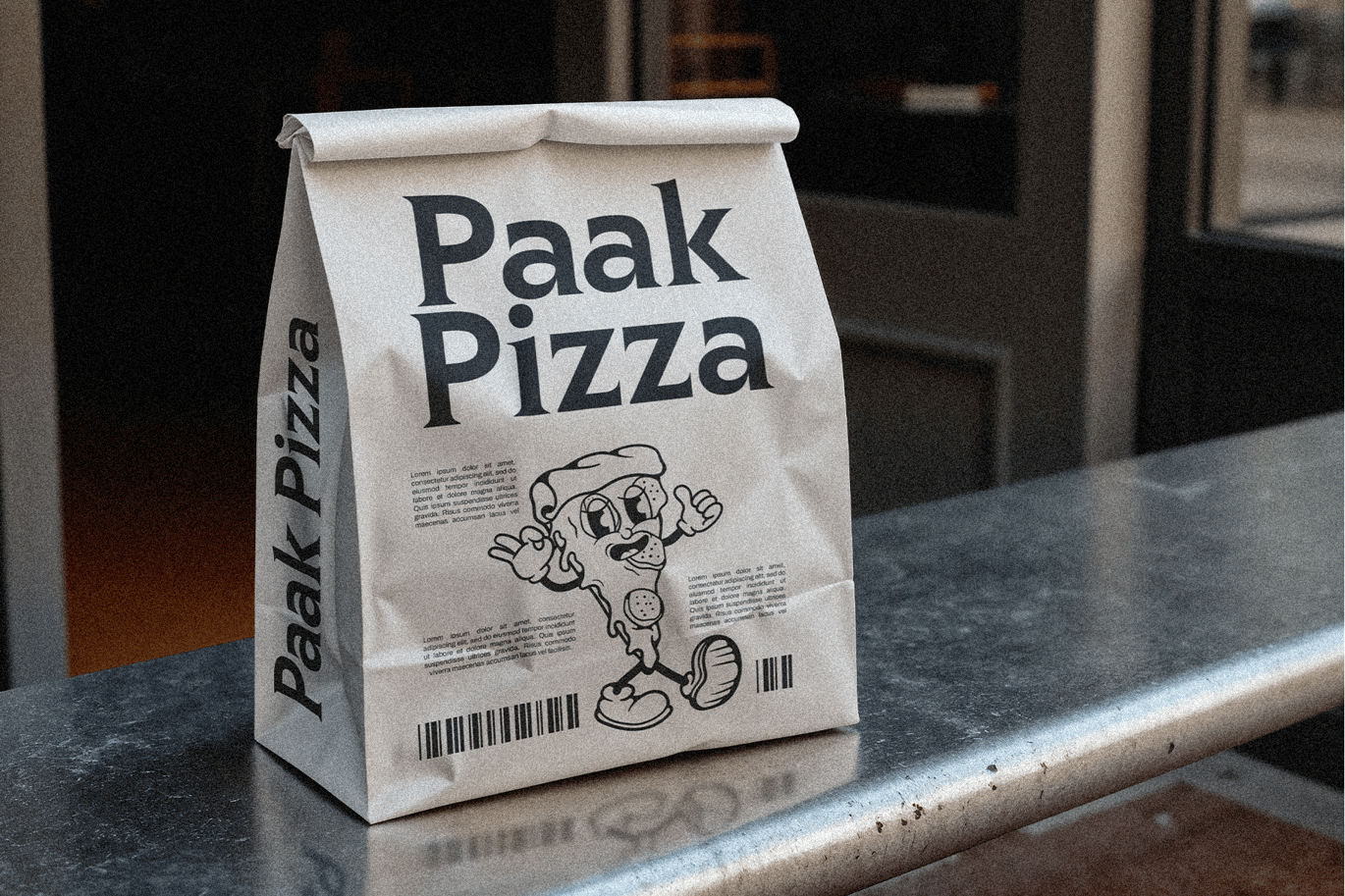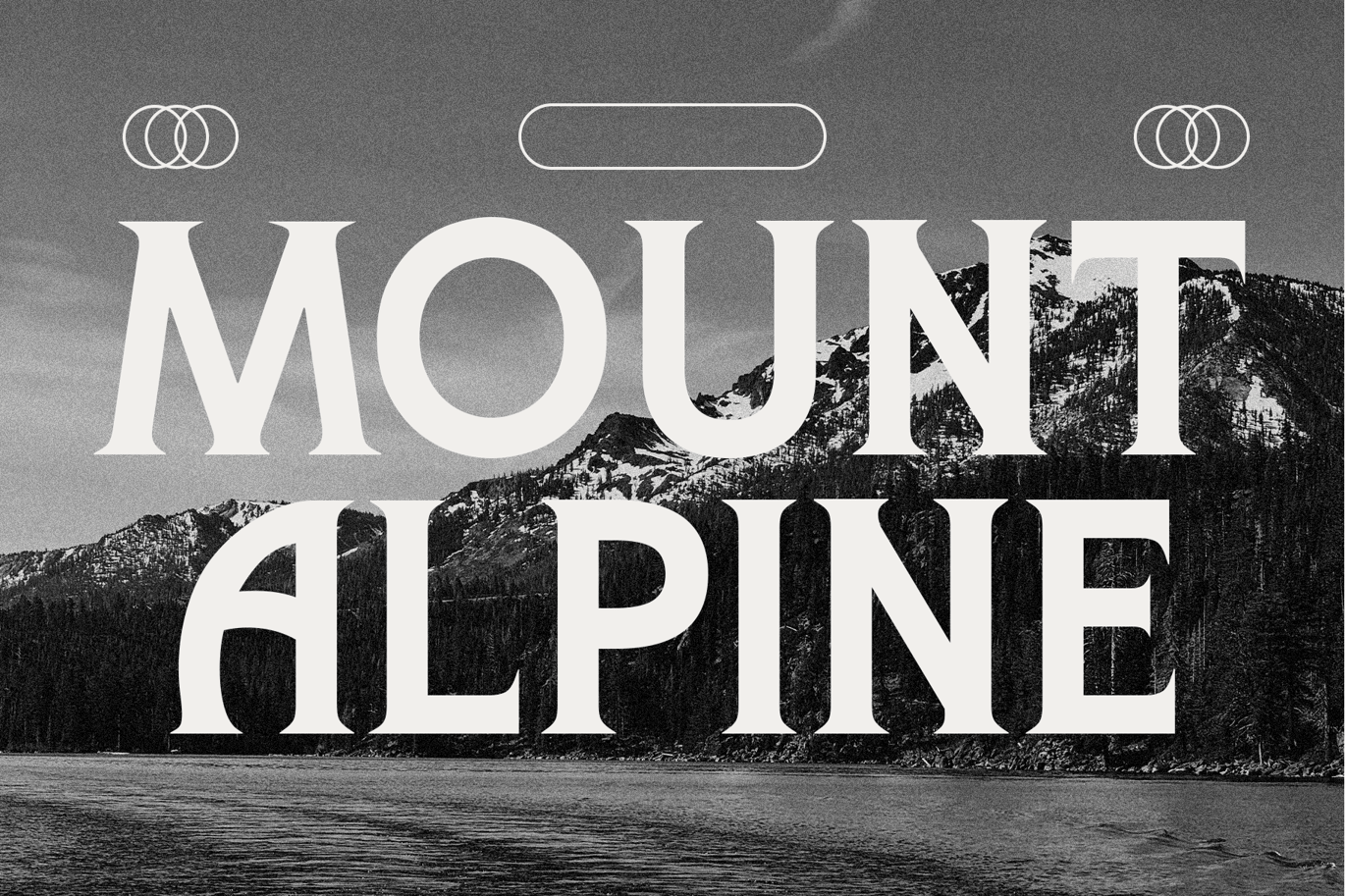
Squire Almond Font
Squire Almond has the heavy, flared capitals of an old inn sign. Serifs are sharp wedges, strokes swell into them, and letters such as the Q and R carry long, pointed tails. On a takeaway bag in the specimen it reads as friendly and solid. Over a mountain photo, MOUNT ALPINE looks like the label on an expedition map.
Best uses for Squire Almond
• Pizza, burger and takeaway branding
• Outdoor and adventure gear
• Beer, whisky and coffee labels
• Book covers for history or fantasy
• Shop signs and menu boards
Squire Almond is heavy, so give it a lighter partner. Work Sans keeps body text clean. Archivo suits product details. For a serif with similar old-style roots, try Cinzel for small headings.
Squire Almond Font FAQ
What free font is similar to Squire Almond?
Cinzel and Marcellus are open-licence fonts with a similar classical, flared look. They are lighter, so use bold weights where you can.
Does Squire Almond have lowercase letters?
The specimens show it set in capitals. Viswell lists alternates and ligatures; check the full version for the complete character set before you plan a mixed-case layout.